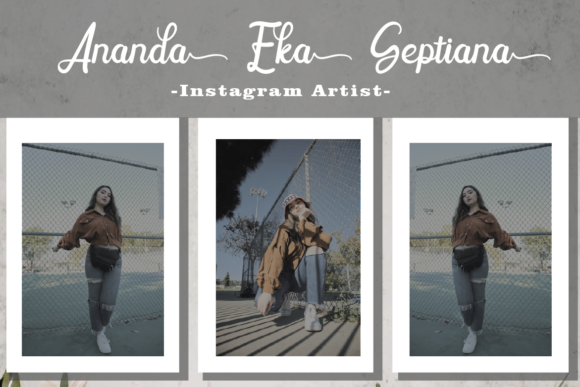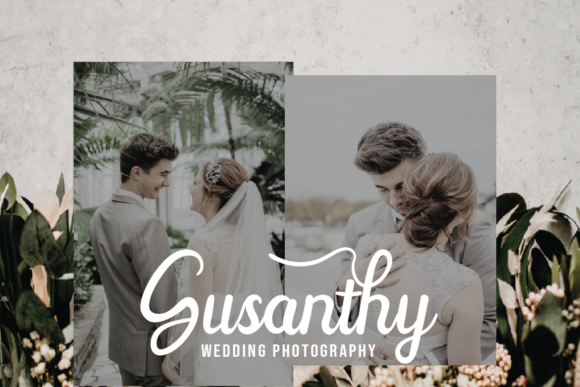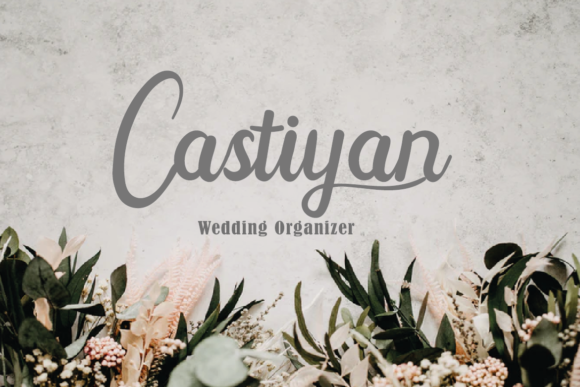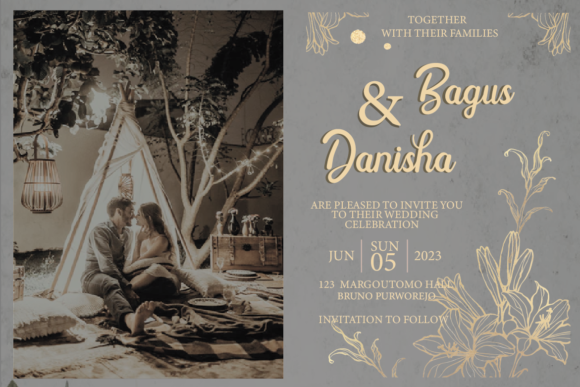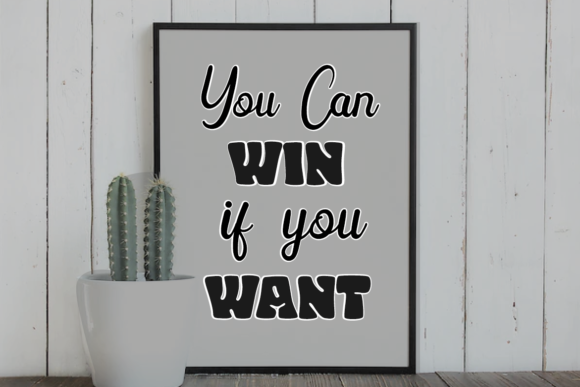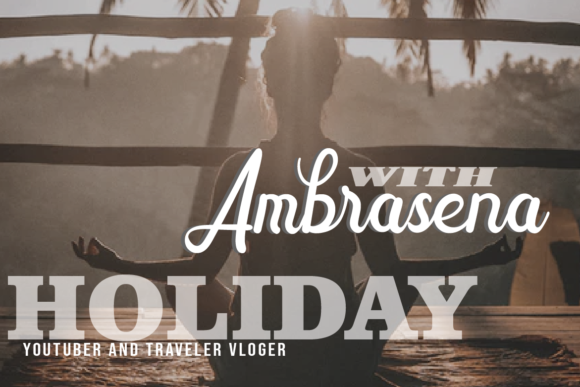
The Magical World of Babrune Font: A Designer’s Delight
I’ll never forget the time I was working on a romantic getaway brochure for a client, and I just couldn’t find the perfect font to capture the essence of love and elegance. The project required a script font that would transport readers to a whimsical world of candlelit dinners and sunset strolls. That’s when I stumbled upon Babrune Font, and it was love at first sight! 💕
A Personal Review of Babrune Font
What I Love About Babrune Font
- ✨ Enchanting Handwritten Style: Babrune Font boasts a beautiful, handcrafted feel that adds a touch of warmth and personality to any design project.
- ✅ Versatility: From greeting cards to headlines, this font is incredibly versatile and can be used for a wide range of applications.
- 💫 PUA Encoding: The font is PUA encoded, making it easy to access all the gorgeous glyphs and swashes.
While Babrune Font is an amazing addition to any design project, there are a few minor quirks to be aware of:
- 🤔 Occasional Kerning Issues: As with many script fonts, you may encounter some kerning issues, especially when using the font at smaller sizes.
- ⚠️ Limited Use on Non-OpenType Platforms: Some platforms may not support OpenType features, which could limit your ability to access certain glyphs and swashes.
The Story Behind Babrune Font
While the true origins of Babrune Font remain a mystery, it’s easy to imagine that it was crafted by a talented type designer with a passion for handwriting and elegance. Perhaps the designer was inspired by the romanticism of old-world love letters or the whimsy of vintage posters. Whatever the inspiration, Babrune Font is a true gem that brings a touch of magic to any design project.
Q: What is PUA encoding, and how does it benefit Babrune Font?
A: PUA (Private Use Area) encoding allows font designers to include additional glyphs and characters that aren’t part of the standard Unicode range. In the case of Babrune Font, PUA encoding provides easy access to beautiful swashes and glyphs.